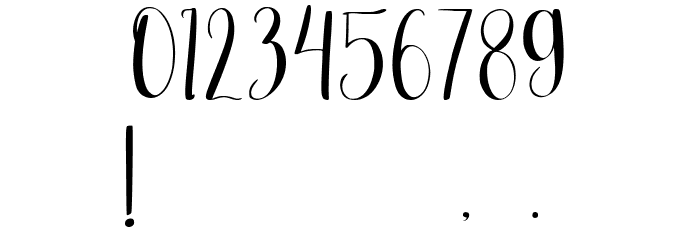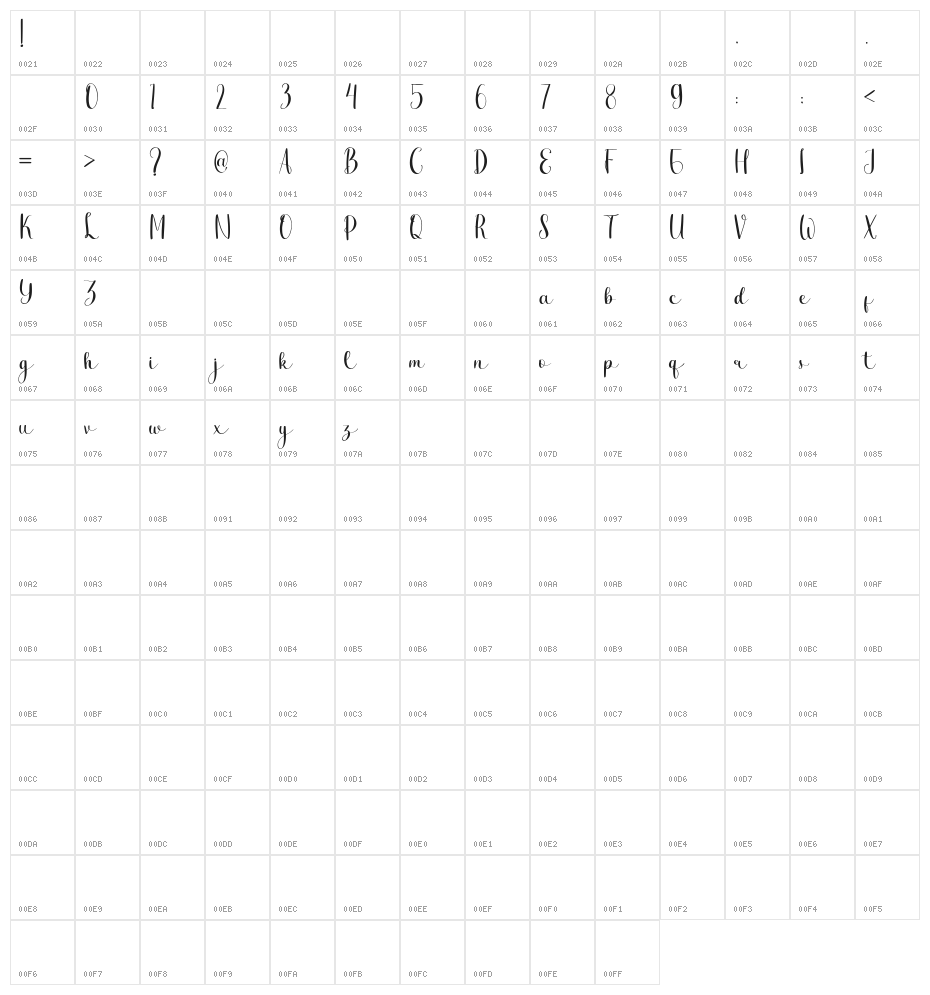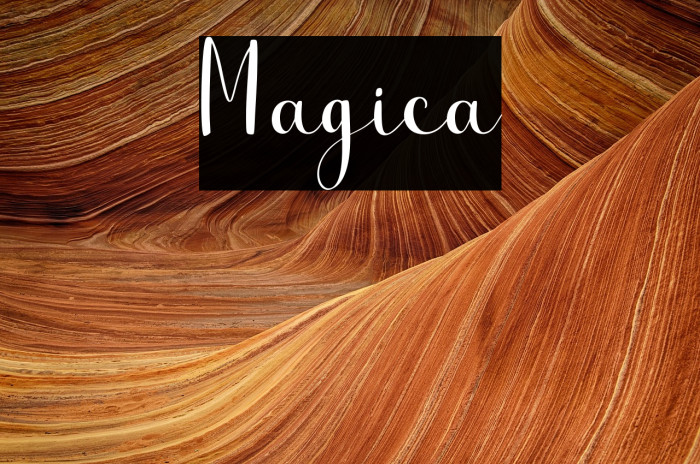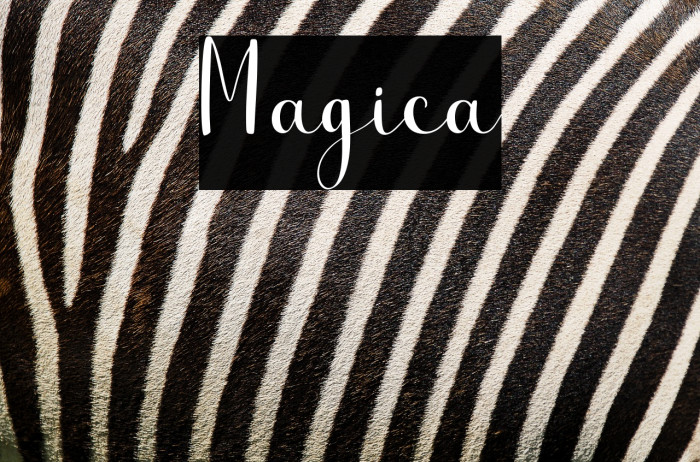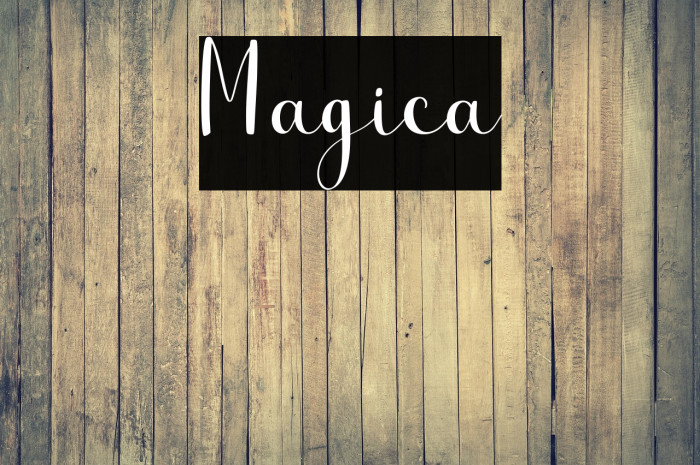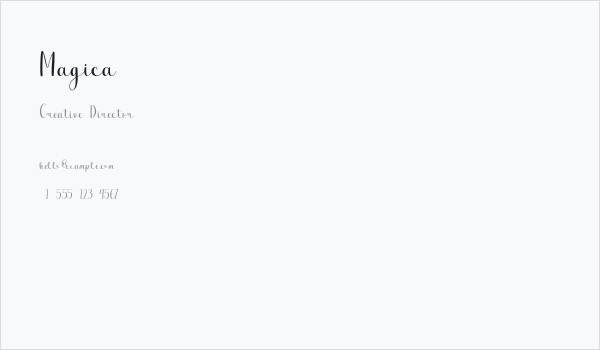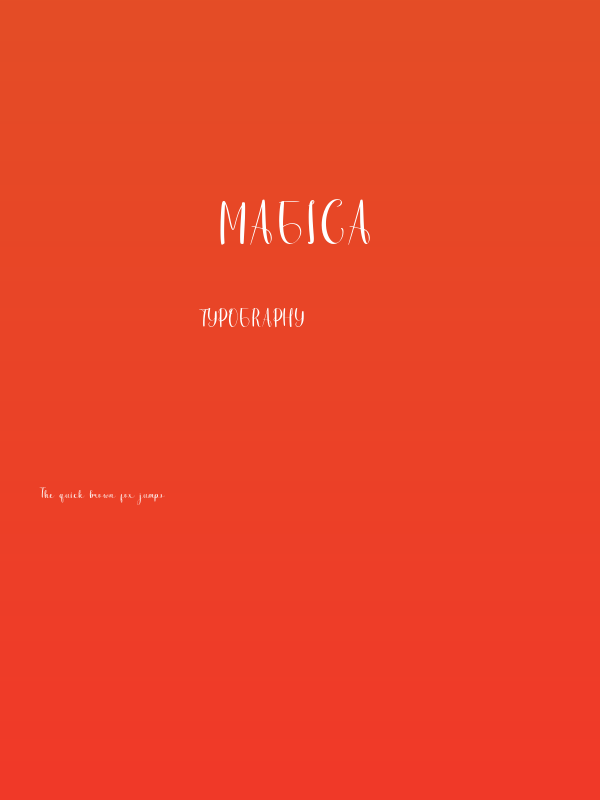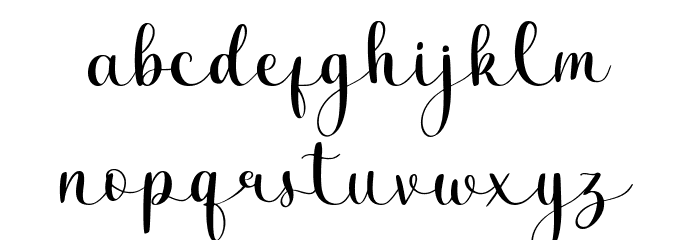
Magica Font
Magica Description
This font features an elegant and flowing script style, characterized by its smooth, cursive strokes and a playful yet sophisticated appearance. The uppercase letters are tall and graceful, with a slight slant and varying thickness that adds a dynamic feel. The lowercase letters maintain a consistent flow, with loops and curves that enhance its handwritten charm. Numbers and special characters are designed to match the overall aesthetic, providing a cohesive look. The font exudes a sense of creativity and elegance, making it suitable for projects that require a personal touch.